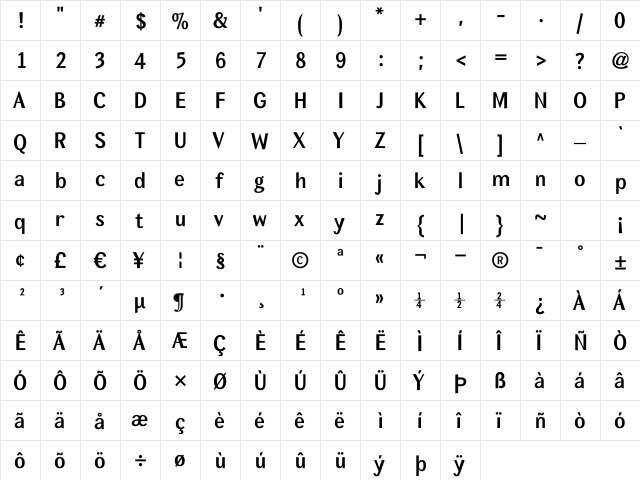
MexSansBold Regular Font Preview
MexSansBold Regular
Design Context for MexSansBold Typeface
MexSansBold offers clean, dependable letterforms without strong stylistic allegiance, making it a practical choice for designers who need flexibility. Its bold stroke weight gives it real presence on the page.